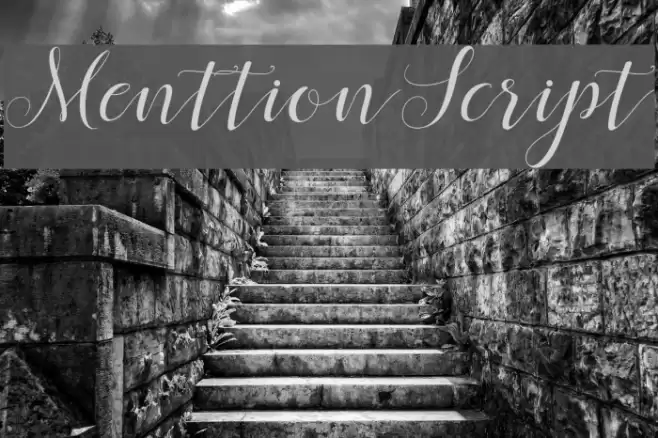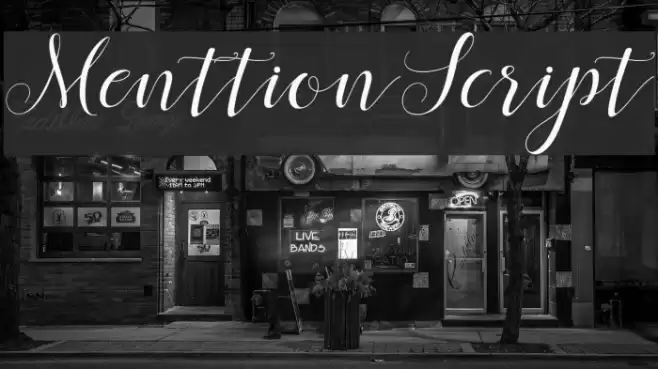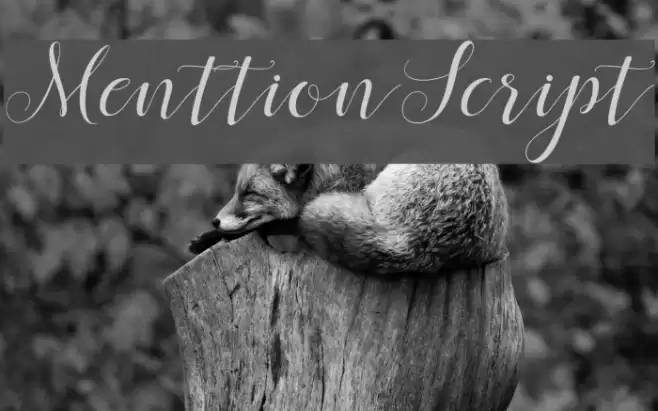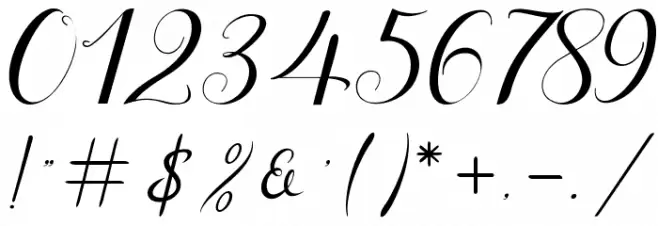
MenttionScript Font
MenttionScript Description
This elegant script font features graceful, flowing lines with intricate loops and swashes, giving it a sophisticated and artistic appearance. The uppercase letters are particularly ornate, with elaborate flourishes that extend beyond the baseline and cap height. The lowercase letters maintain a consistent style, offering a harmonious blend of curves and loops that enhance readability while maintaining a decorative flair. The numerals are equally stylish, with a slight slant and refined curves that match the overall aesthetic. Special characters are designed with the same attention to detail, ensuring a cohesive look across all glyphs. This font exudes a sense of luxury and refinement, making it ideal for high-end branding and design projects.
An elegant script font with flowing lines and intricate swashes from Uncategorized fonts.
- Proposed Projects: Ideal for wedding invitations, luxury branding, elegant stationery, and artistic posters.
- Overall Style: Elegant, Artistic
- Use Case: Logos, Invitations, Decorative text